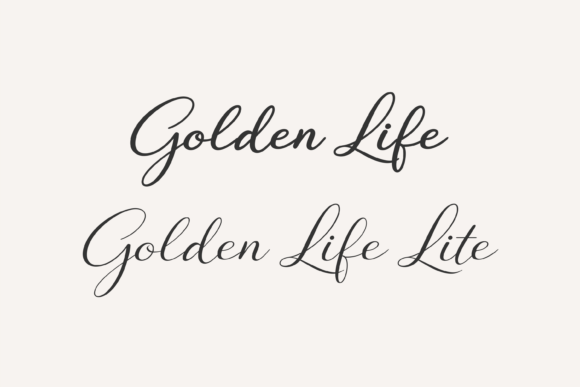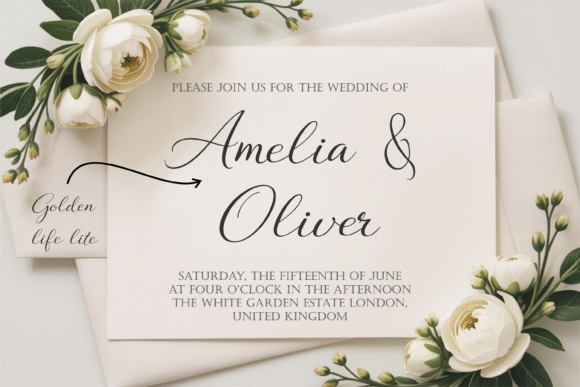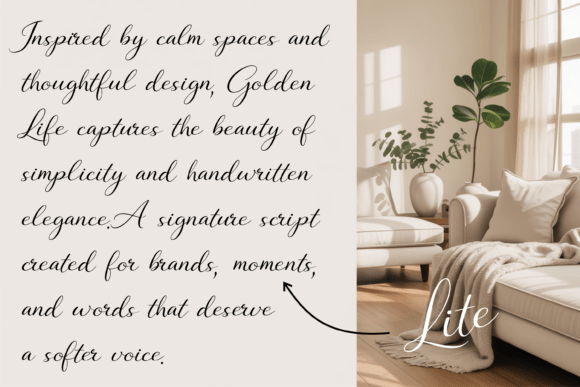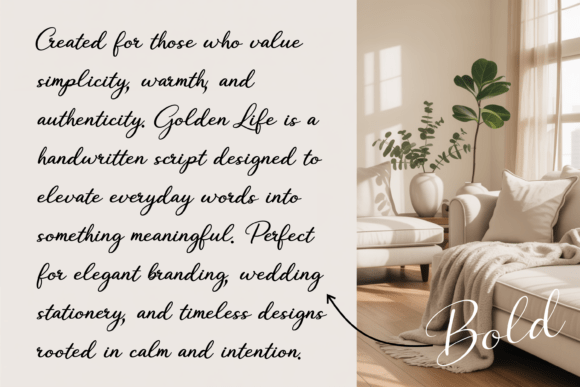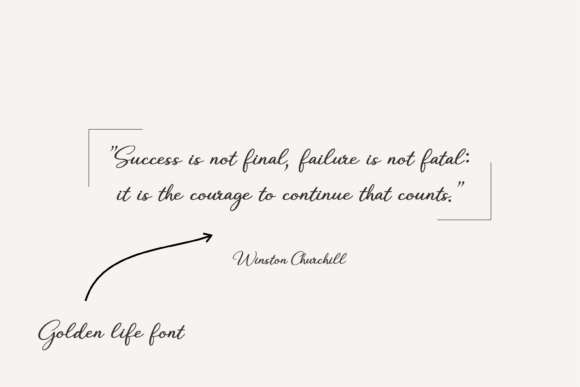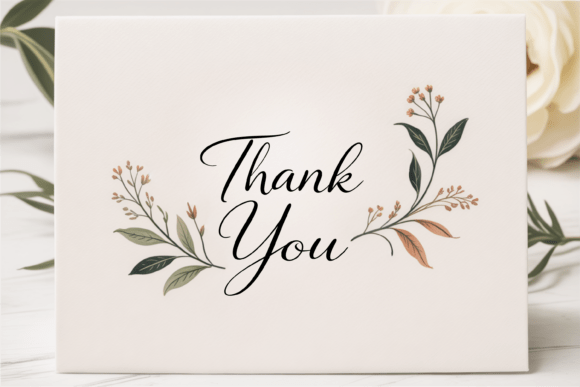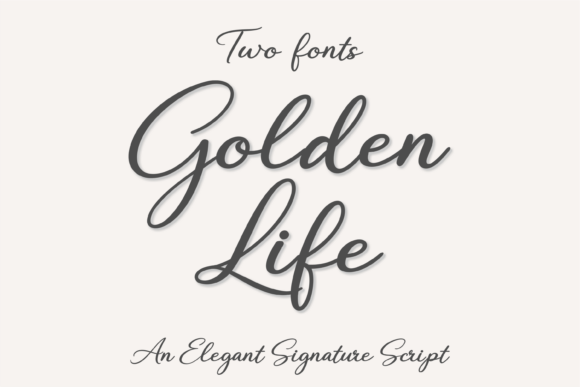
Introducing Golden Life Font: Elevate Your Designs with Elegance and Timeless Beauty
In the world of typography, a font can make all the difference in conveying the intended message and aesthetic of a design. For creators seeking to infuse their projects with calm, warmth, and timeless beauty, the Golden Life Font is an exceptional choice. This elegant handwritten signature script font duo is meticulously crafted to bring a refined yet approachable feel to modern typography, making it perfect for a wide range of design applications.
The Inspiration Behind Golden Life
Golden Life Font draws inspiration from thoughtful design and natural handwriting, resulting in a font that exudes a sense of serenity and sophistication. The duo consists of two complementary styles, Regular and Lite, which can be used separately or together to create contrast, hierarchy, and softness within the same aesthetic. The Regular style is confident and expressive, while the Lite version offers a delicate, airy appearance ideal for refined layouts.
Key Features of Golden Life Font
- Elegant Handwritten Signature Script: Golden Life Font boasts a beautiful, handwritten signature script that adds a touch of elegance to any design.
- Duo Style: The font comes in two complementary styles, Regular and Lite, allowing for versatility and creativity in design.
- Wide Range of Applications: Golden Life is perfect for wedding stationery, invitations, branding, logos, quotes, packaging, editorial layouts, social media graphics, and lifestyle designs.
- Comprehensive Character Set: The font includes uppercase and lowercase letters, numbers, symbols, and punctuation, making it suitable for both print and digital projects.
- Smooth Curves and Graceful Swashes: Golden Life features smooth curves and graceful swashes that add personality to designs while remaining clean and highly readable.
Golden Life Font is designed for creators who value simplicity, elegance, and a refined aesthetic. Whether you’re a designer, crafter, or DIY enthusiast, this font is an excellent addition to your toolkit. Its versatility and range make it suitable for various projects, from wedding stationery and branding to social media graphics and editorial layouts.
Why Choose Golden Life Font?
With Golden Life Font, you can:
- Create stunning wedding stationery and invitations that exude elegance and sophistication.
- Develop a strong brand identity with a unique and recognizable typography.
- Elevate your editorial layouts and social media graphics with a refined and modern aesthetic.
- Add a personal touch to your packaging designs and make them stand out.
Tips for Using Golden Life Font
To get the most out of Golden Life Font, consider the following tips:
- Pair the Regular and Lite styles for a beautiful contrast and visual interest.
- Use Golden Life as a headline font to add elegance and sophistication to your designs.
- Experiment with different colors and textures to enhance the font’s natural beauty.
- Don’t be afraid to mix and match Golden Life with other fonts to create a unique typography.
Golden Life Font is an exceptional addition to any designer’s or crafter’s toolkit. Its elegant handwritten signature script, duo style, and comprehensive character set make it perfect for a wide range of design applications. With its smooth curves and graceful swashes, Golden Life adds a touch of timeless beauty and sophistication to any project. Whether you’re creating wedding stationery, branding, or social media graphics, Golden Life Font is an excellent choice for those seeking to elevate their designs with elegance and refinement.